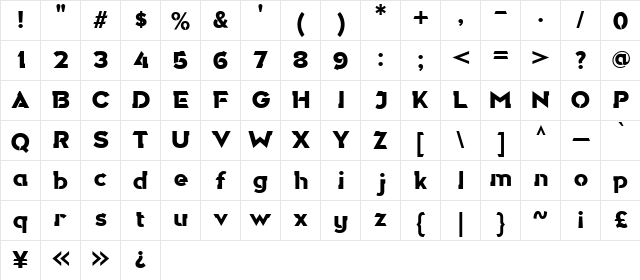
Dirga Extra-Bold
| Designer | Dadan Sukma Nurdiansyah |
Design Context for Dirga Typeface
Dirga is a composed and adaptable typeface that performs quietly and consistently across a wide range of design contexts. The heavy weight commands attention and anchors typographic hierarchies.